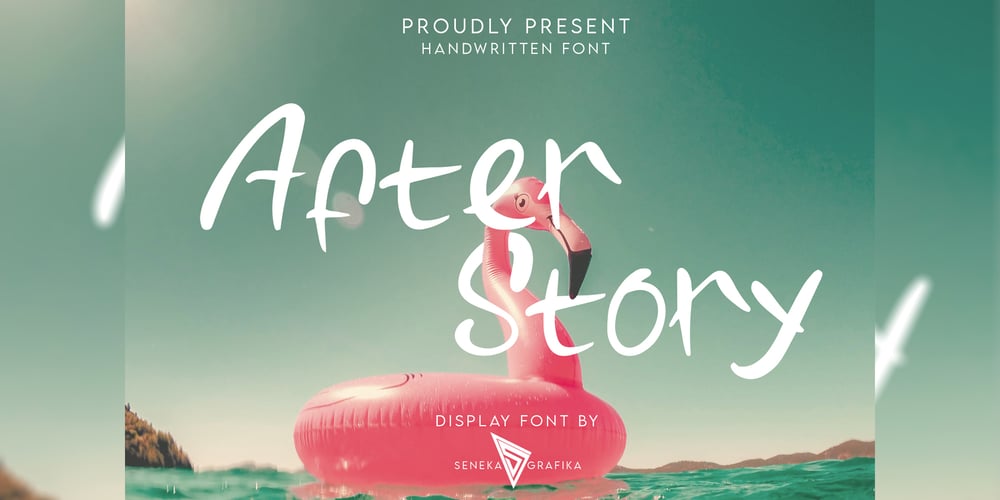
After Story Font Family was designed by Muhammad Helmi and published by Senekaligrafika. After Story contains 1 styles and family package options. “After Story” is a playful handwriting font special for summer display,that puts a smile on your project and will inspire you to create something fun and memorable.“After Story” will help you to create special and touching typographical design for vacation projects, for every day or the happiest day in life, happy birthday cards, baby shower, greeting card, headings, flyer, product packaging, book cover, printed quotes, logos, and many more.It is really universal and modern font.The owner of endless possibilities!